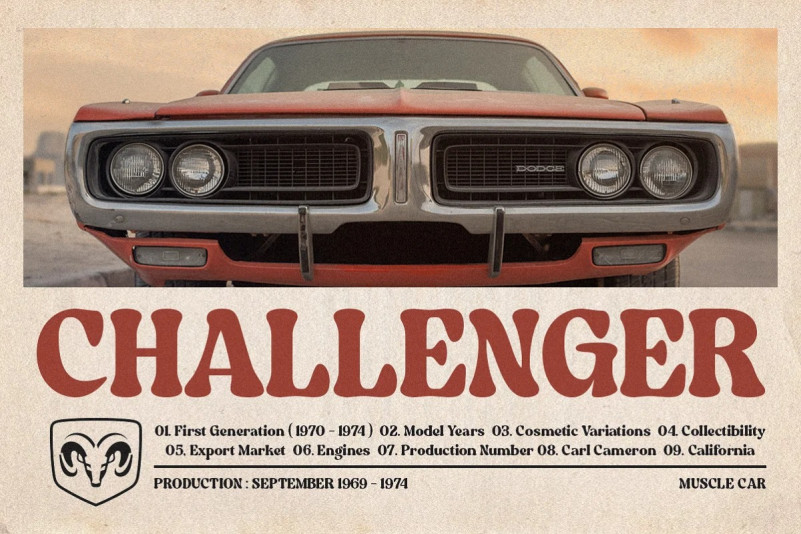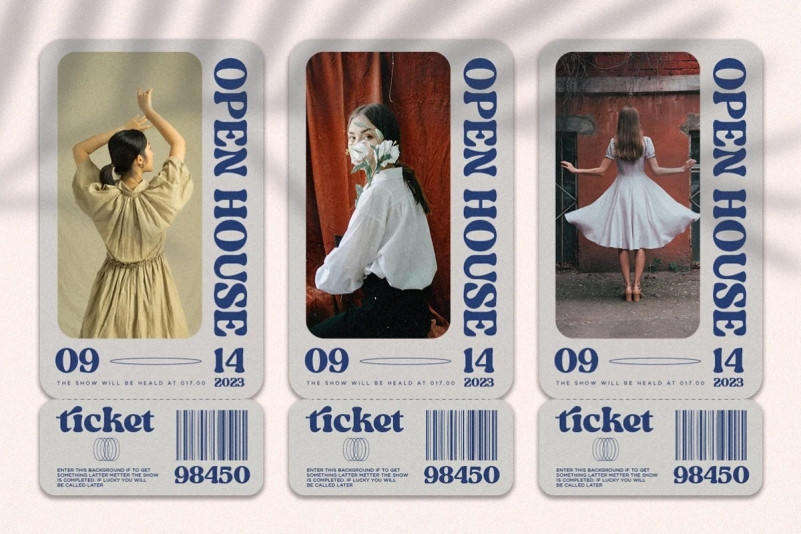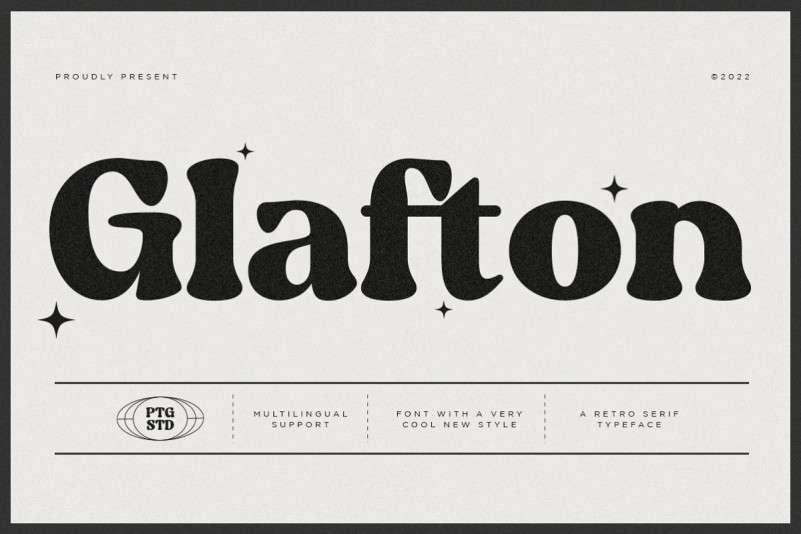
Glafton Font
It’s time to see our impressive font,Glafton Retro Font, Is A Retro Serif Typeface Inspired By Retro and Vintage Style. This font is perfect for stickers, retro projects, craft projects, shirts, svg designs, procreate designs, branding, blogs, logos, invitations and more!